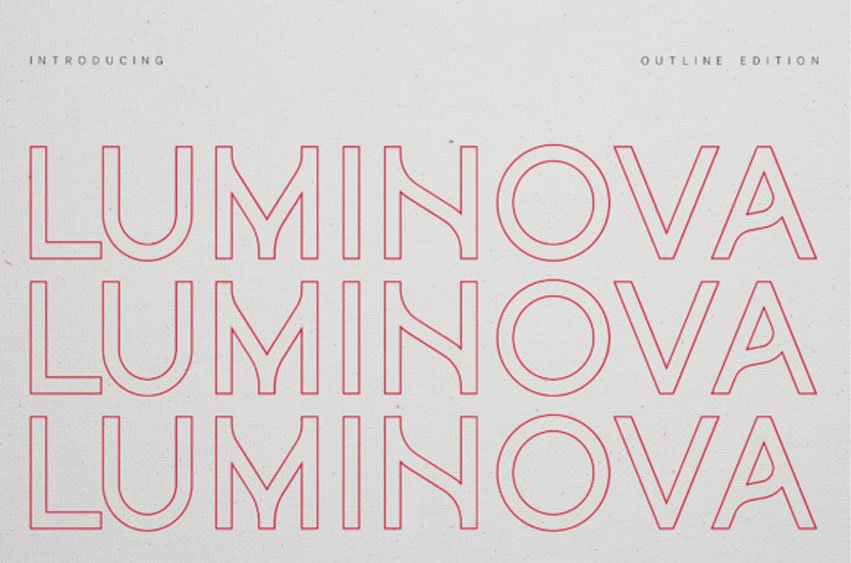
Luminova Outline Font is a modern geometric sans serif built for clarity, versatility, and contemporary branding.
Designed with balanced proportions and smooth rounded forms, it delivers a clean and confident visual voice across digital and print projects. The included Outline Edition expands creative flexibility — perfect for bold headlines, layered typography, packaging design, and modern logo systems.
The Luminova Outline typeface is characterized by its clean, hollowed-out letterforms and distinctive structural gaps, making it a premier choice for sci-fi cinema posters, high-tech branding, and futuristic gaming interfaces.
The open architecture of the Luminova Outline font allows it to interact beautifully with complex backgrounds, such as neon gradients, deep space textures, or minimalist photography.
Whether you are designing a logo for a modern tech startup or creating high-impact headings for a digital magazine, the Luminova Outline typeface delivers a sense of speed and innovation. Pair this striking Luminova font with solid sans-serifs to create a layered, professional hierarchy in your layouts. Its bold presence ensures that your message doesn’t just sit on the page—it vibrates with modern energy.
From startup identities to social campaigns, Luminova adapts seamlessly to today’s design needs.